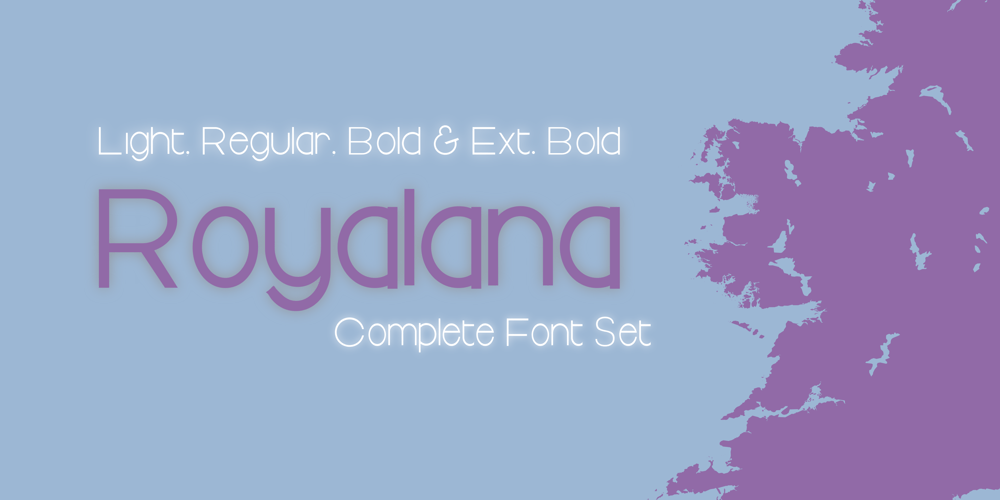
Royalana Font Family was designed by Ahsan Ahmedzai and published by Kufic Studio. Royalana contains 8 styles and family package options. Royalana is a modern royal font with a minimalist factor. A complete font set containing all the important glyphs.Royalana has been inspired by the very minimalist and compact designs in trend to deliver a new look and yet keeping the professional outlook of any design or print.Royalana font set includes;Royalana Light, Royalana Light Italic, Royalana Regular, Royalana Italic, Royalana Bold, Royalana Bold Italic, Royalana Extra Bold & Royalana Extra Bold Italic.Kufic Studio is a platform that provides professional and high-quality designs & fonts to fill the gap that has been missing in the market.